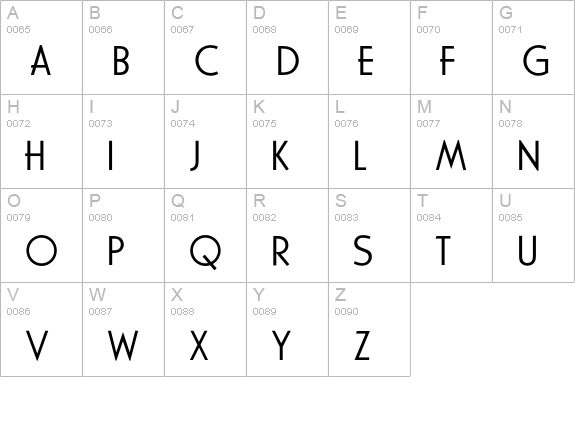
OPTICivet-Light Font Details
OPTICivet-Light is a refined, elegant variant in the OPTICivet typeface family \xE2\x80\x94 well suited to elegant body text, refined sub-headings, and luxury branding.
Introducing OPTICivet-Light font, a sleek and modern typeface designed to bring a touch of elegance to your projects. With its clean lines and sophisticated style, OPTICivet-Light is perfect for creating a polished and professional look. This versatile font is ideal for a wide range of design applications, from branding and advertising to web design and more. What sets OPTICivet-Light apart is its unique blend of classic and contemporary elements, making it both timeless and on-trend. The light weight of the font gives it a delicate and refined appearance, making it perfect for adding a touch of sophistication to any project. Best of all, OPTICivet-Light is completely free to download at FontsMarket.com. So whether you're a designer looking for a fresh new font to add to your collection, or a business owner in need of a stylish typeface for your branding efforts, OPTICivet-Light is the perfect choice. Download it today and see the difference it can make in your designs!